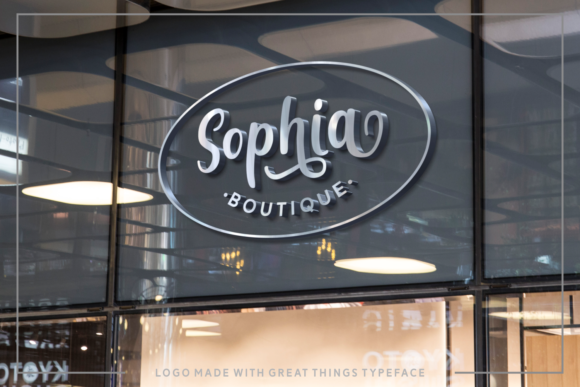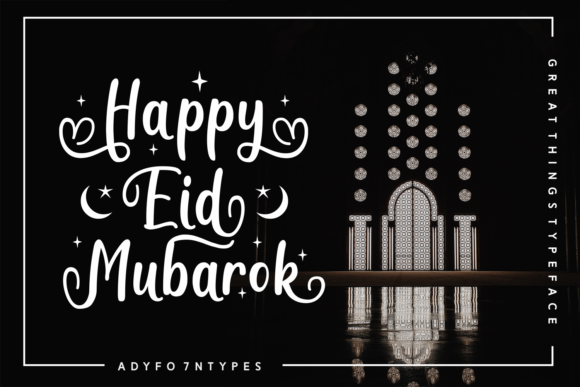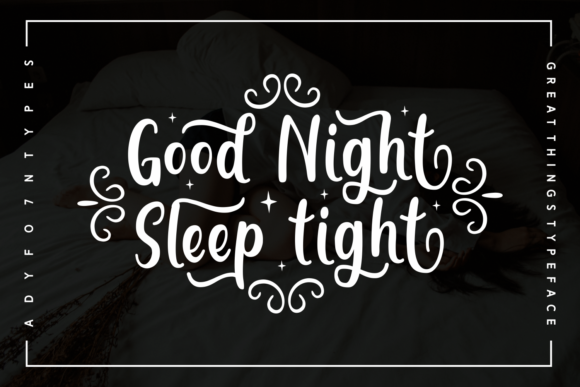
Great Things Font
About Great Things Font
Great Things is a classic handwritten font with an authentic twist. Use it to add a unique spark to any creative project!